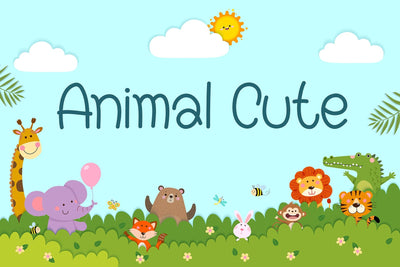
Animal Cute Font
Animal Cute is a fun and friendly lettered display font that is easy to read. You can use it for various projects, such as blog posts, logos, branding, ads, invitations, greeting cards, planners, photo albums, decorations, and much more.